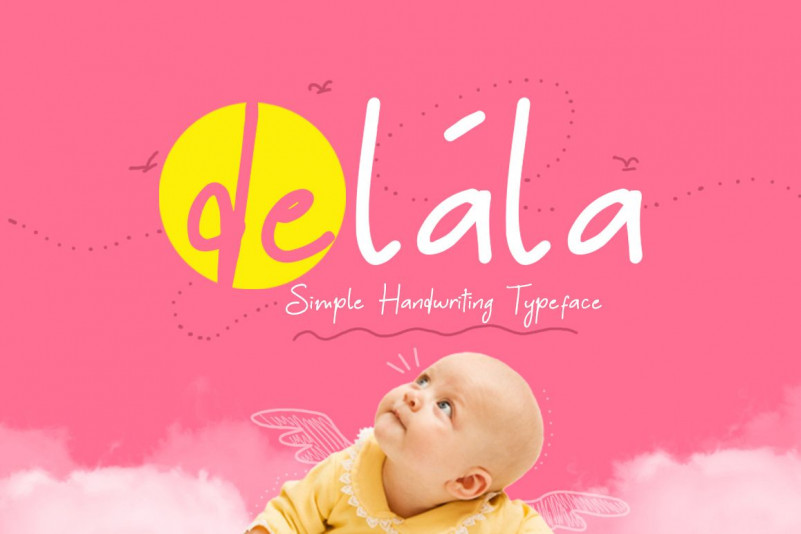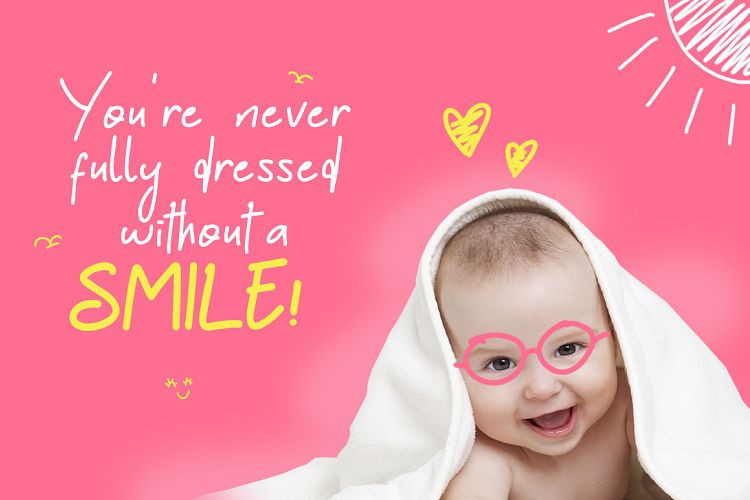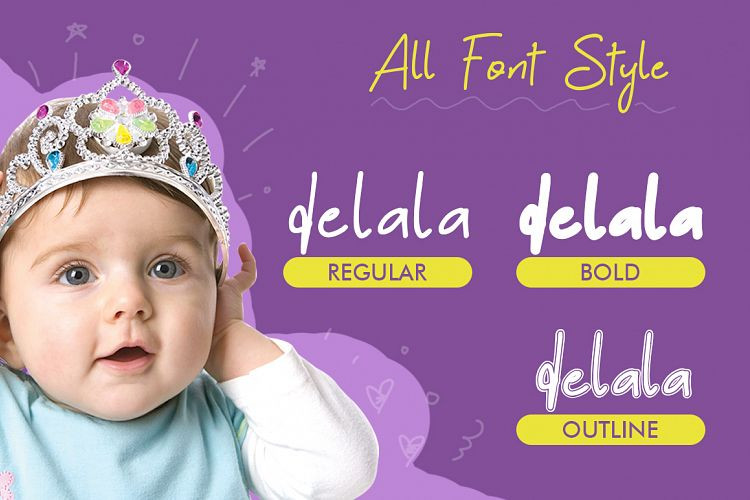
Delala Regular Font
Delala font with 3 different style, regular, bold & outline for your fun project. Delala font suitable for logo, branding, greeting card, poster and any design that you create.